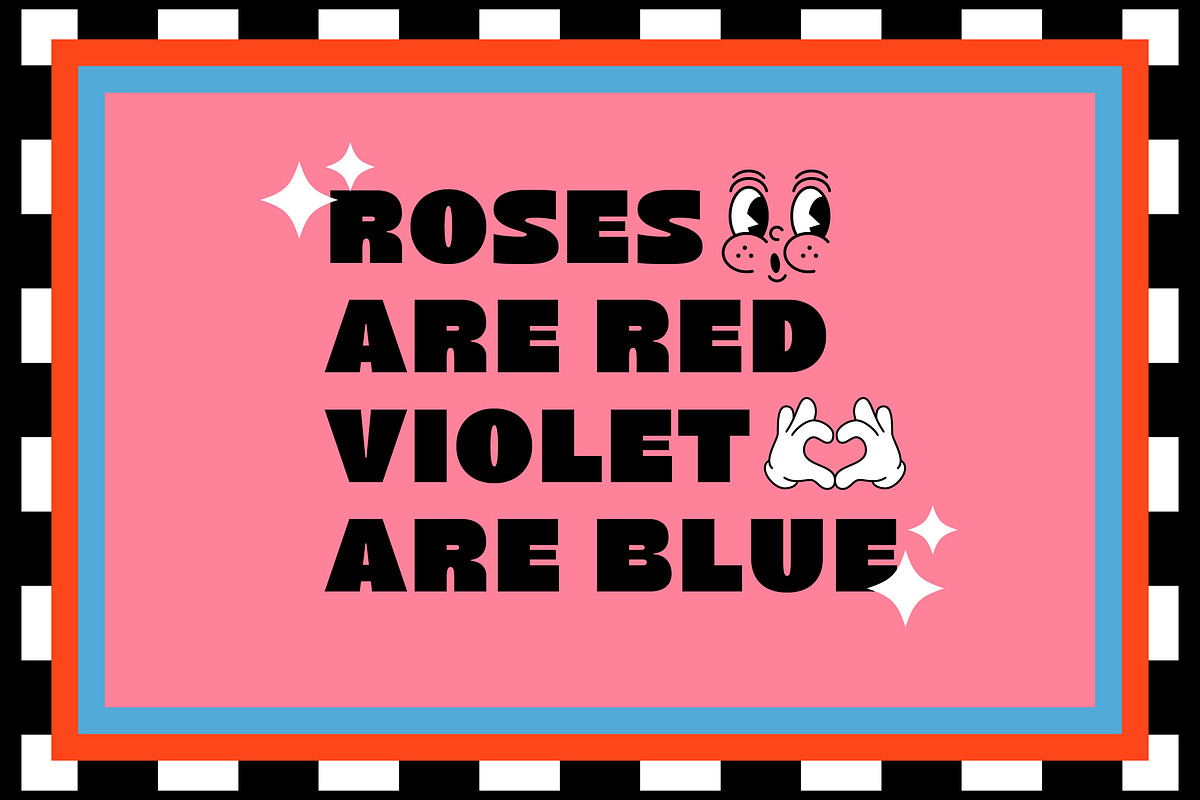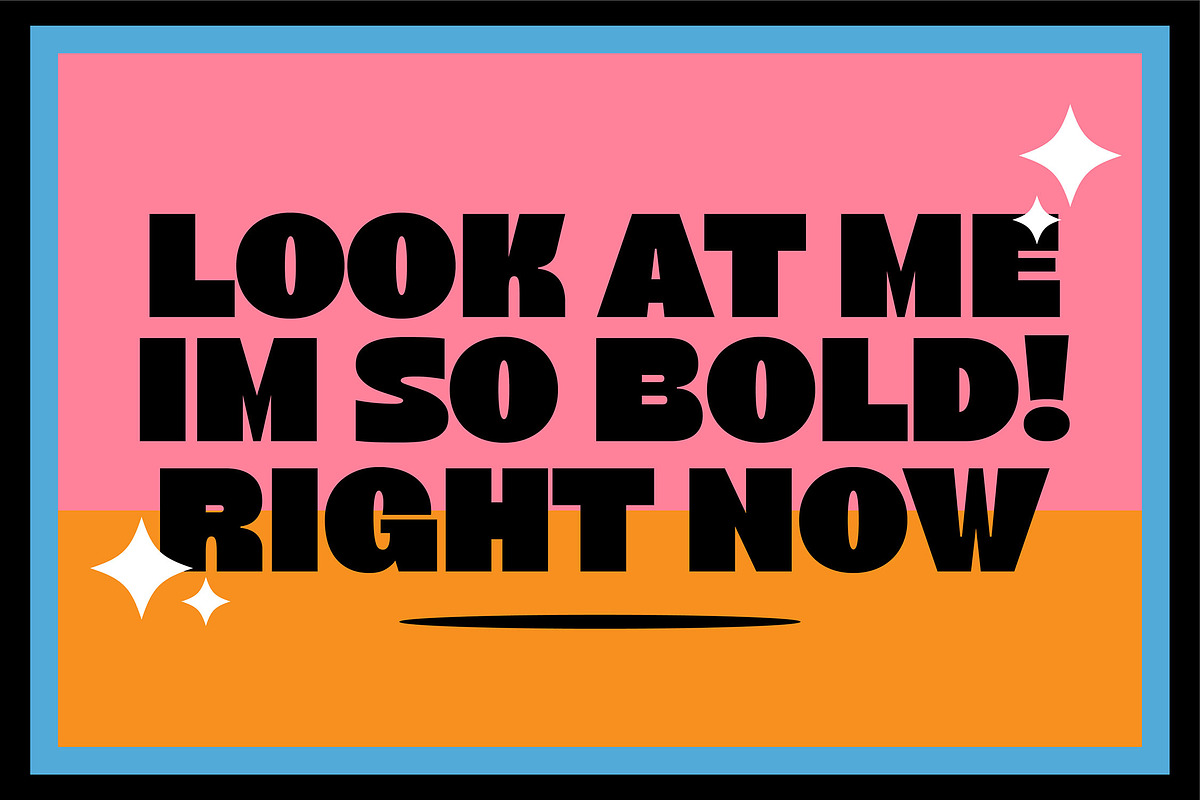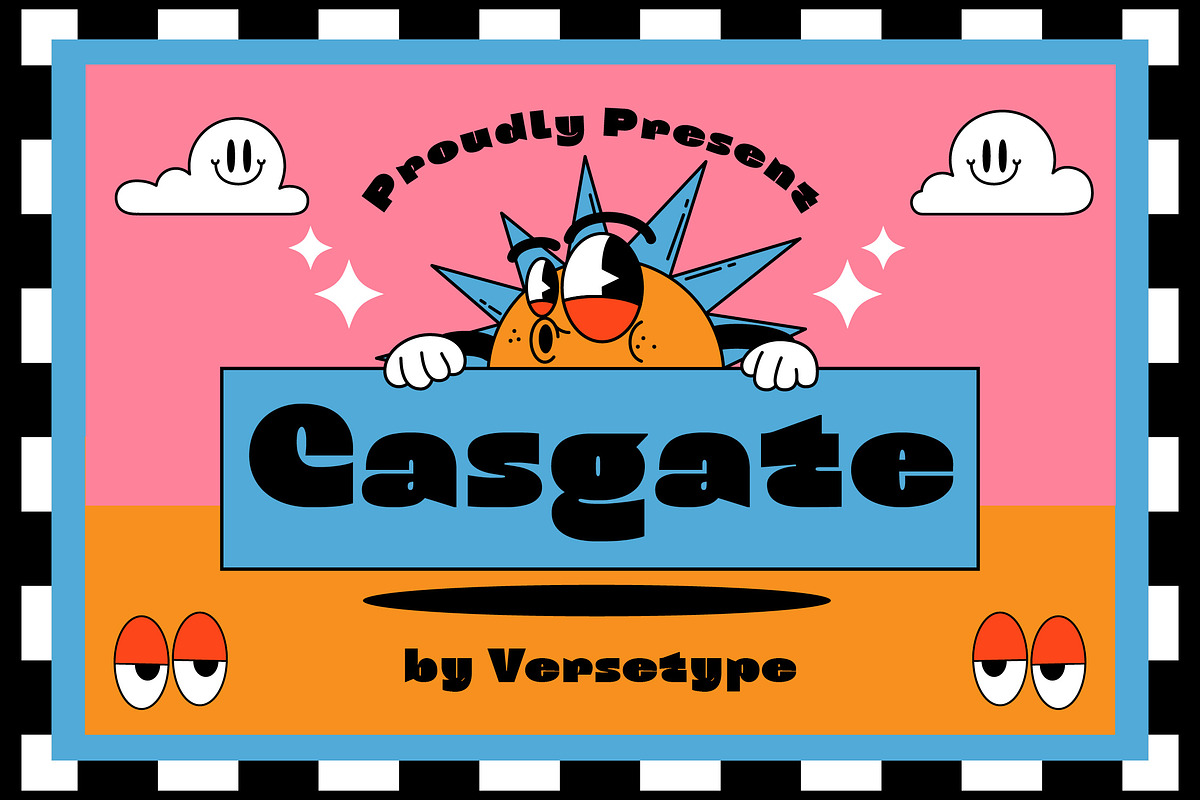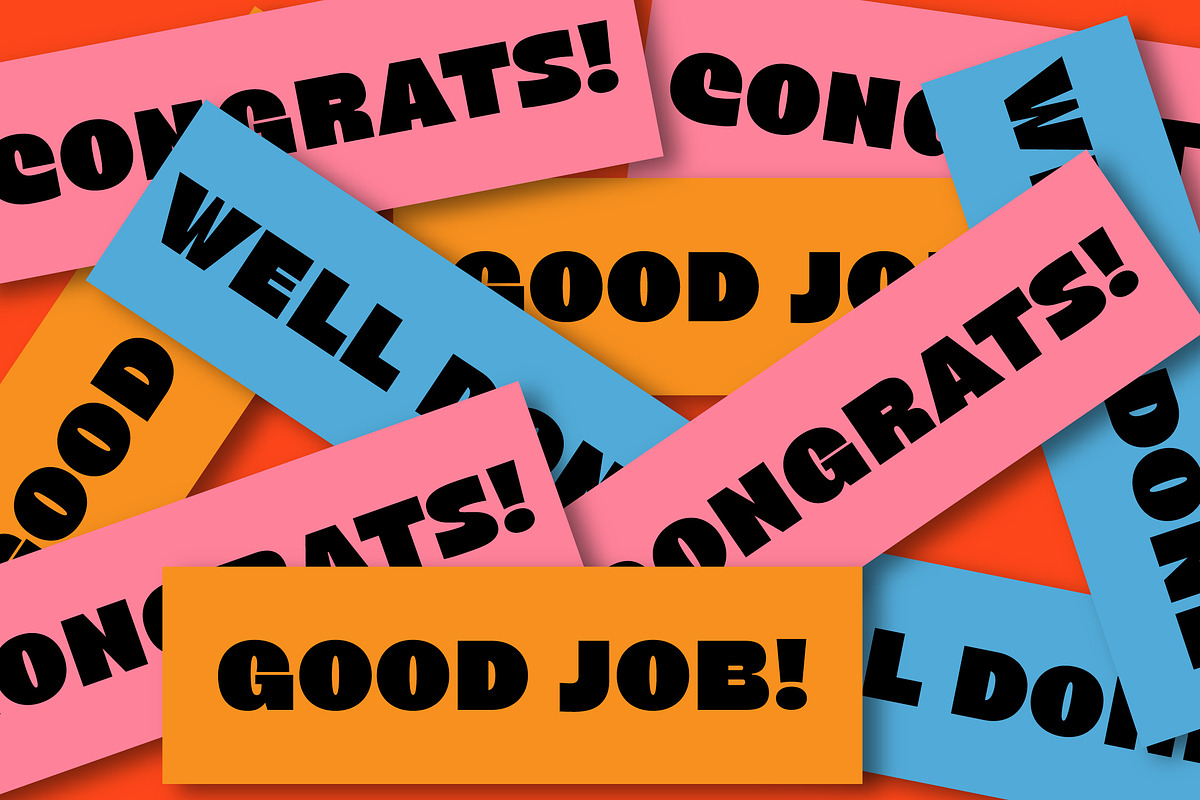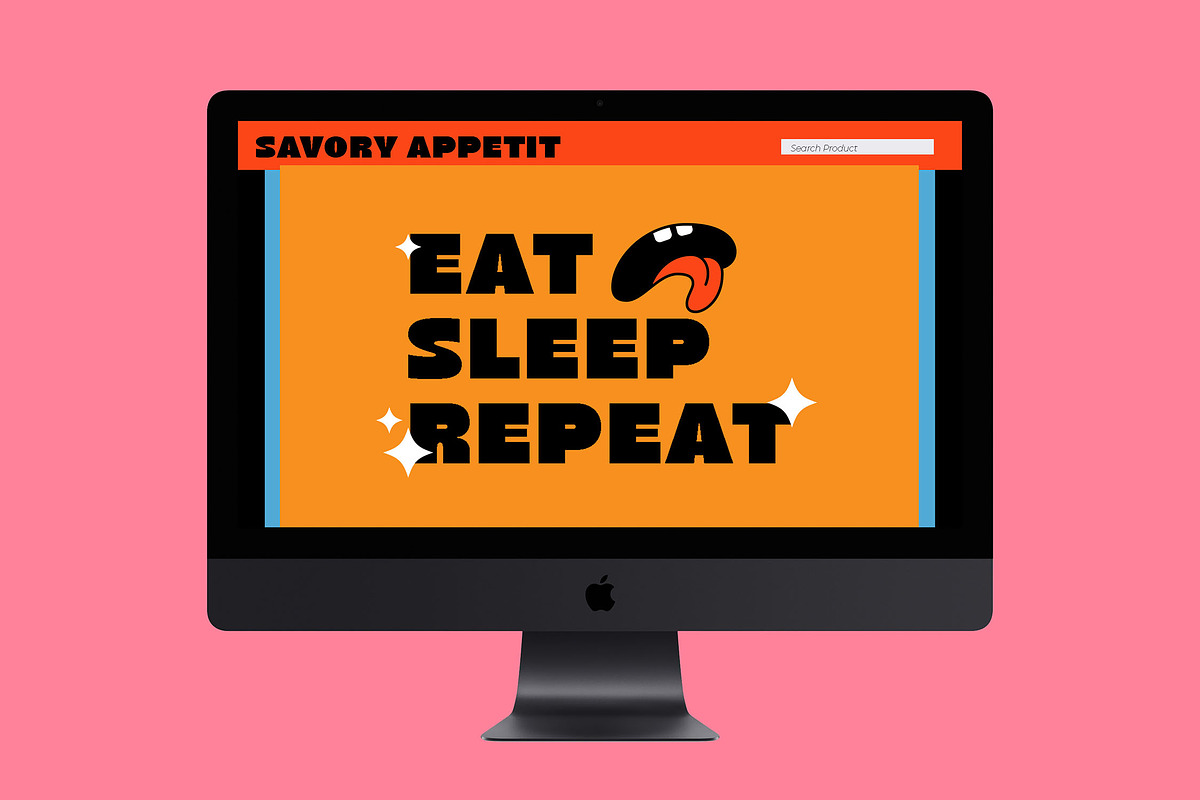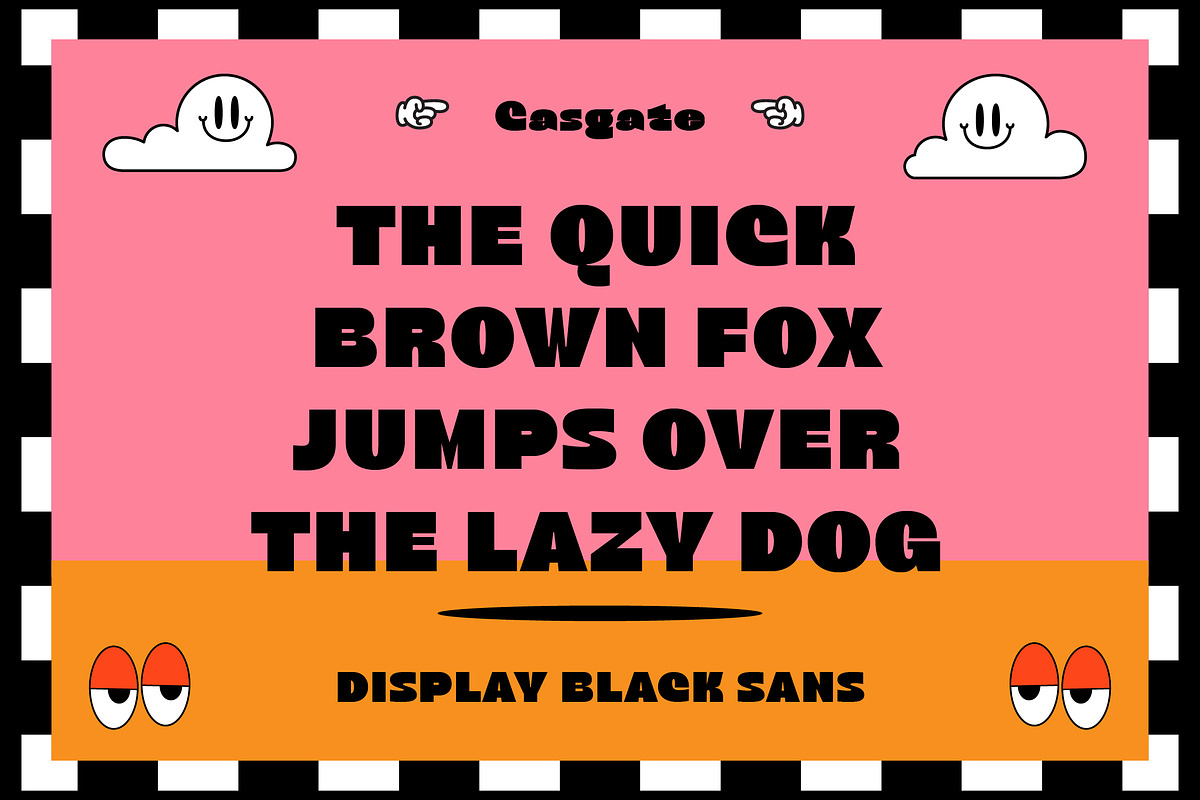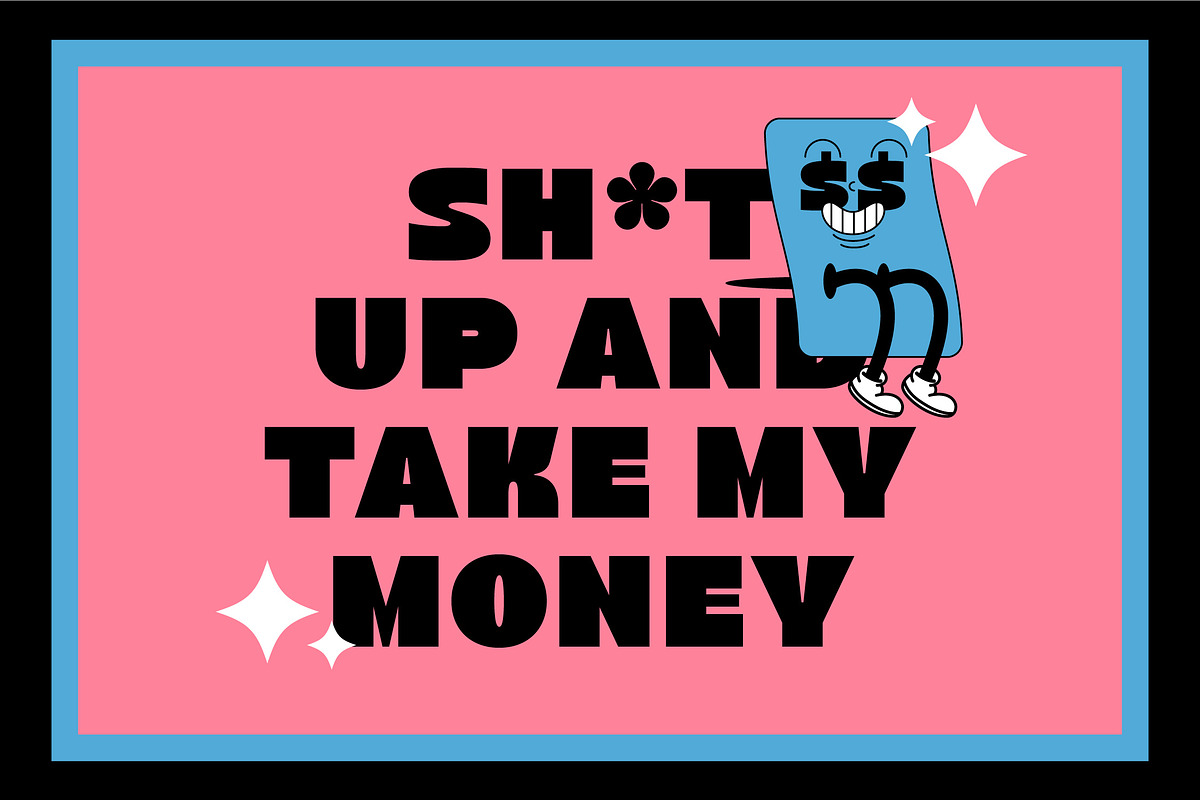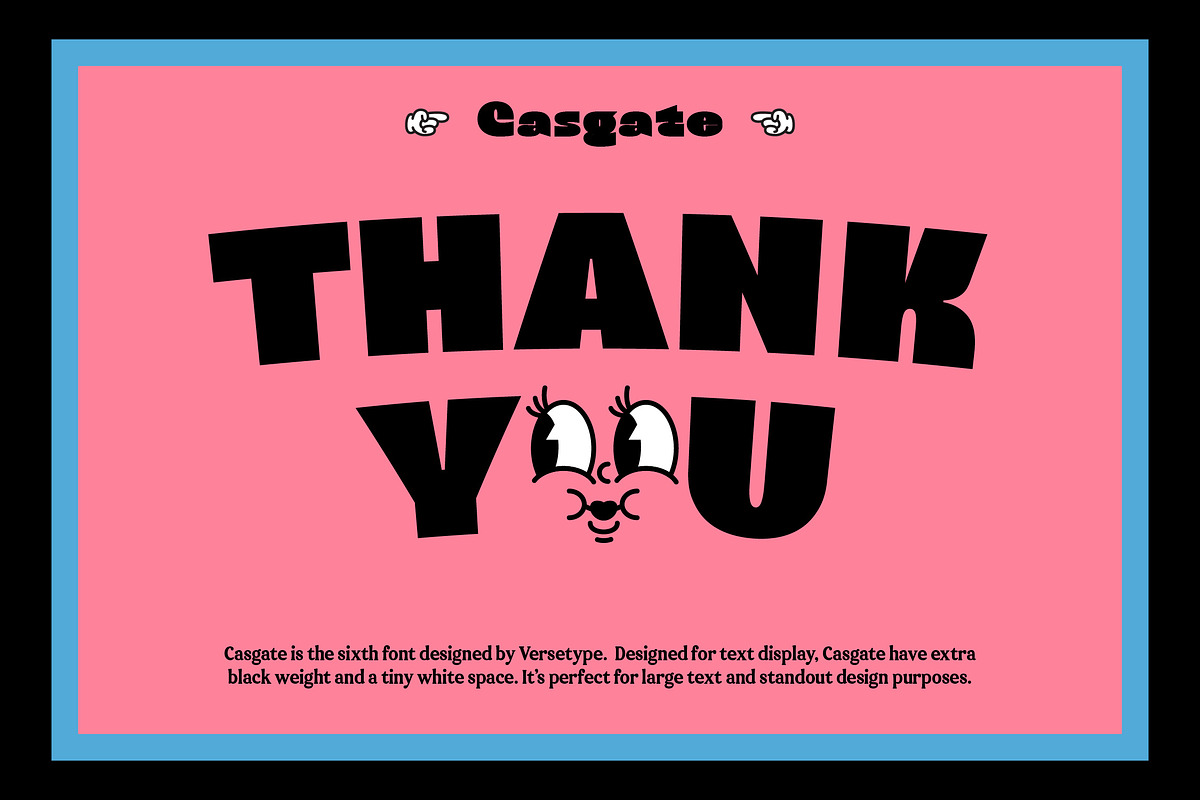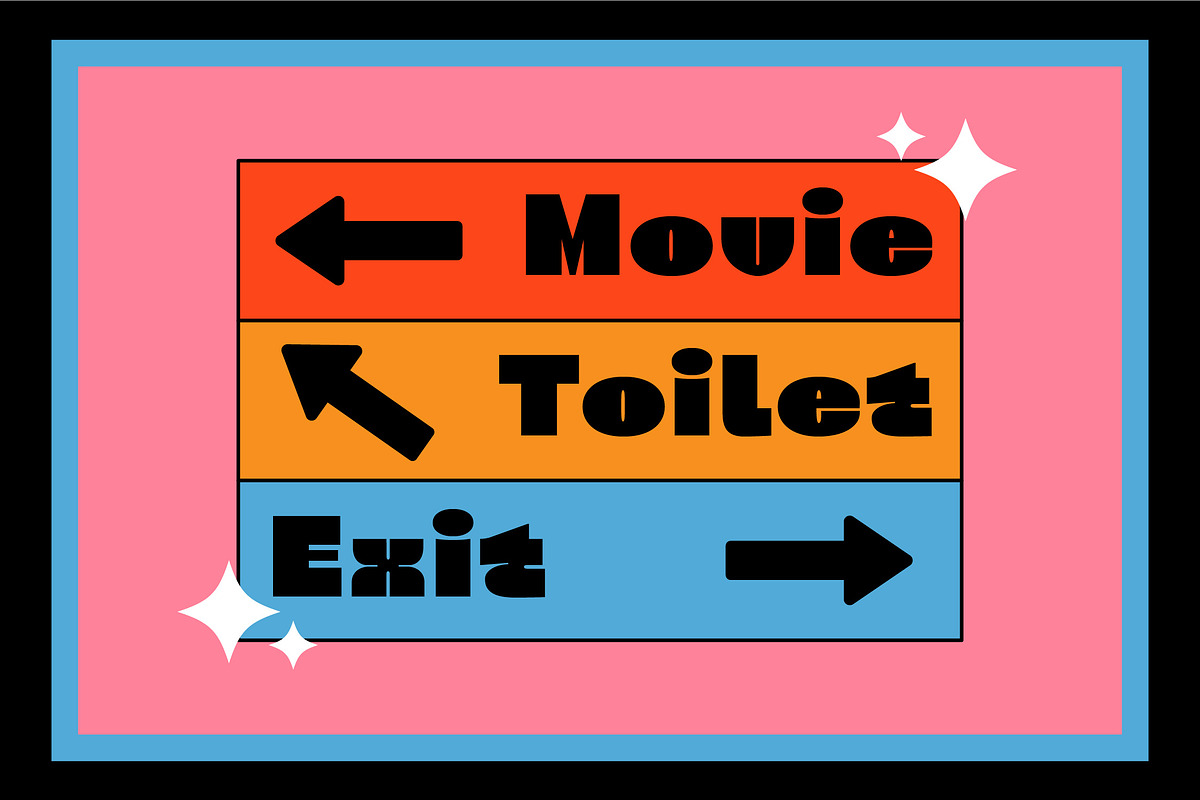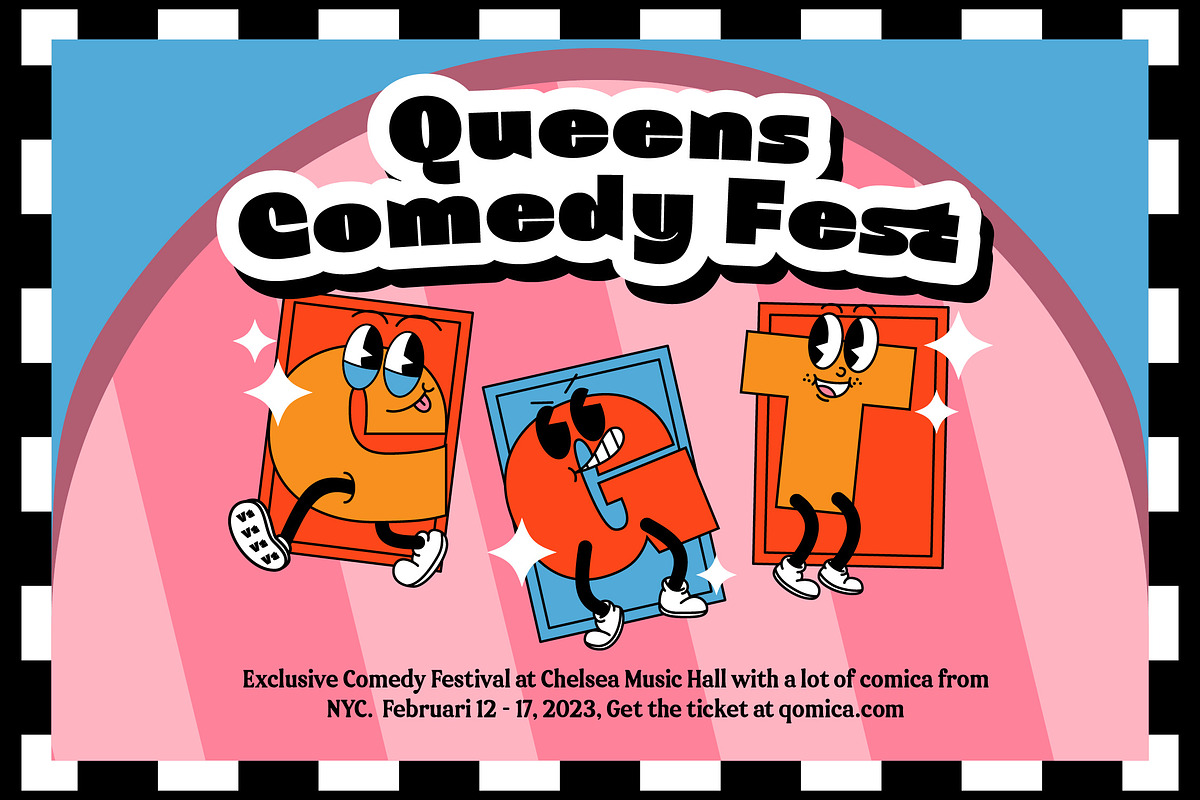
Casgate Black Sans
Casgate is a black sans serif with small white space. Having loud shape with strong character, Casgate is perfect for your standout project.
Casgate also have some unique character, like C,E,GK,S an many more. It can be solution for good headliner fot logo branding, poster, social media needs, magazine, packaging, etc.